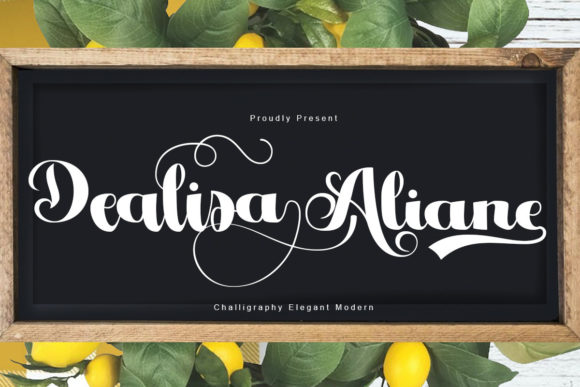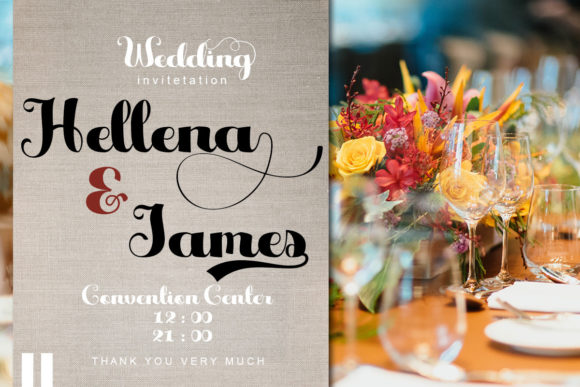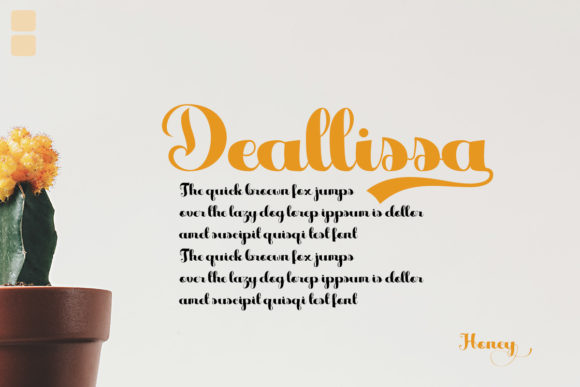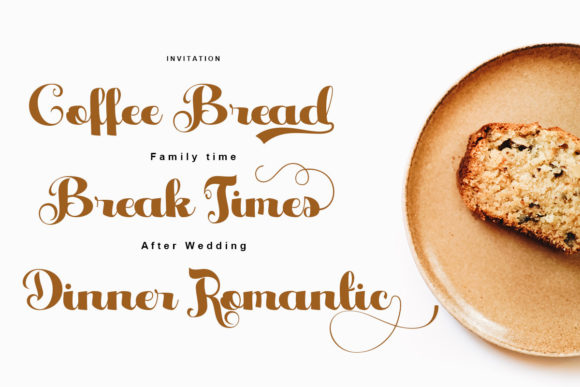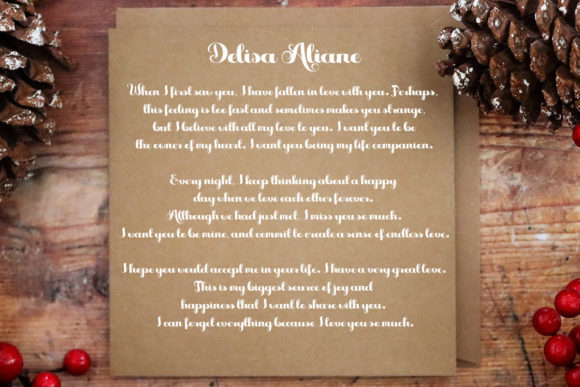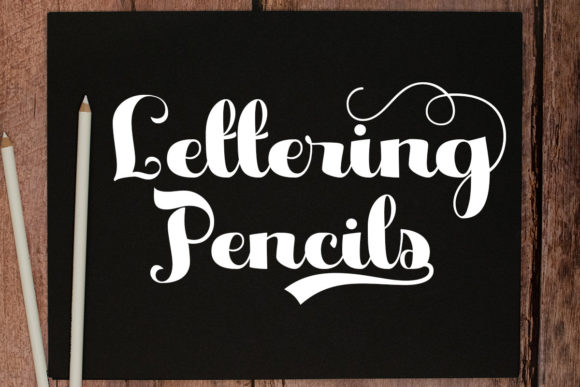
The Perfect Touch: Elevate Your Design with Dealisa Aliane Font
As a designer, you’ve probably experienced that moment when you’re staring at a blank canvas, trying to bring a concept to life. You need a spark, a unique touch that sets your work apart from the rest. For me, that moment often comes when I discover a beautiful, one-of-a-kind font that adds an extra layer of sophistication to my design.
That’s exactly what Dealisa Aliane Font offers – a luxurious, handwritten feel that will elevate any design project you take on. With its stunning impact and versatility, this font is a must-have for any designer looking to add a touch of elegance to their work. Whether you’re working on a branding project, creating a beautiful invitation, or designing a stunning website, Dealisa Aliane Font is the perfect addition to your toolkit.
Dealisa Aliane Font Key Features
- Font Family: Dealisa Aliane is a modern script font, perfect for creating elegant and sophisticated designs.
- Size: Dealisa Aliane font comes in 6 font styles, ranging from Thin to Black, to cater to different design requirements and preferences.
- Resolution: Optimized for high-resolution displays, Dealisa Aliane font supports resolutions up to 300 DPI, ensuring crisp and clear text rendering.
- Unique Characteristics: This font features a unique blend of elegance and sophistication, with intricate details and subtle flair, making it ideal for high-end designs, luxury brands, and special occasions.
Dealisa Aliane Font Review
Dealisa Aliane Font is a lovely, elegant script font that I’ve had the pleasure of working with. ✨ Its flowing lines and subtle flair give it a beautiful, handwritten feel that’s perfect for adding a touch of sophistication to your designs.
- ✨ Beautiful, flowing lines that create a sense of movement and elegance.
- ✨ Versatile and suitable for a wide range of design applications, from logos to typography.
- ✨ Well-suited for use in both digital and print formats.
However, there are a few limitations to be aware of:
- ⚠️ The font may be too ornate for some designs, which could make it difficult to read.
- ⚠️ Limited character set and language support, which may be a problem for some designers.
- ⚠️ Not ideal for use in small font sizes or at low resolutions.
Overall, I think Dealisa Aliane Font is a beautiful and elegant script font that’s perfect for adding a touch of sophistication to your designs. While it may have some limitations, I think it’s well worth the investment for designers who need a high-quality script font.
Tips for Getting the Most Out of Dealisa Aliane Font
Here are some tips to help you get the most out of Dealisa Aliane Font:
- Use it for headings and titles to add a touch of elegance.
- Combine it with other fonts to create a unique and stylish typography.
- Experiment with different font sizes and styles to find the perfect look for your project.
Dealisa Aliane Font is perfect for: